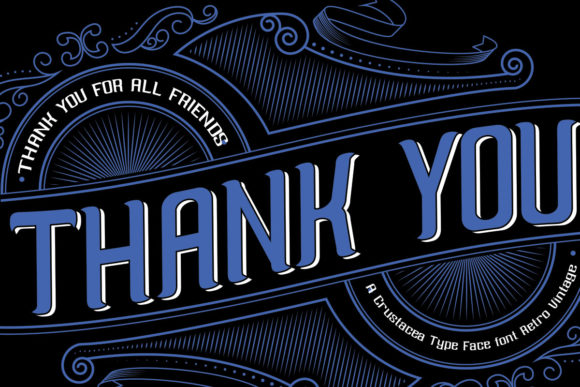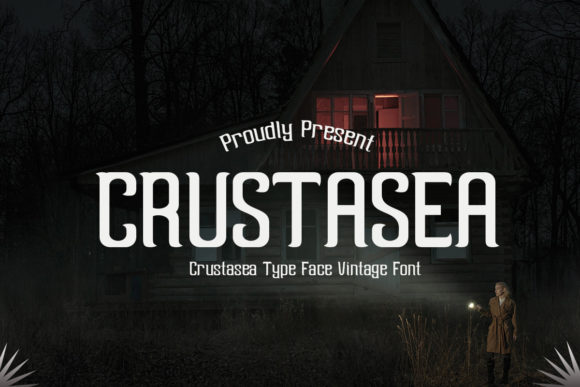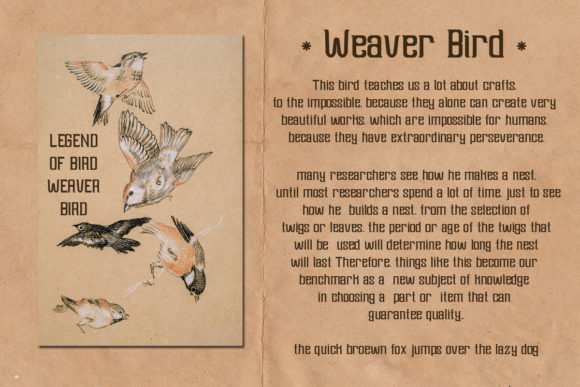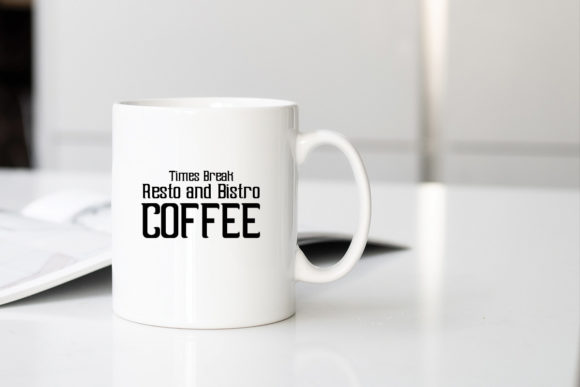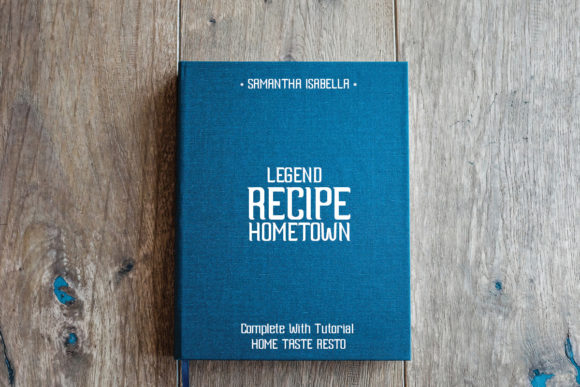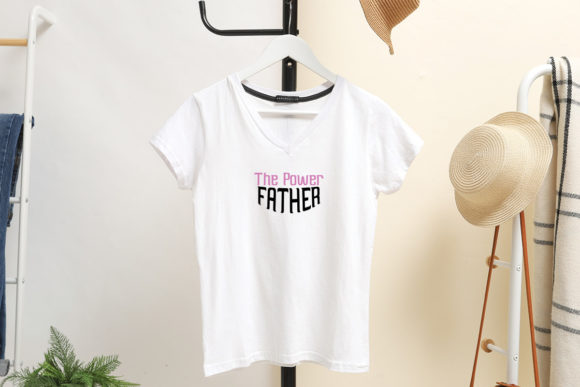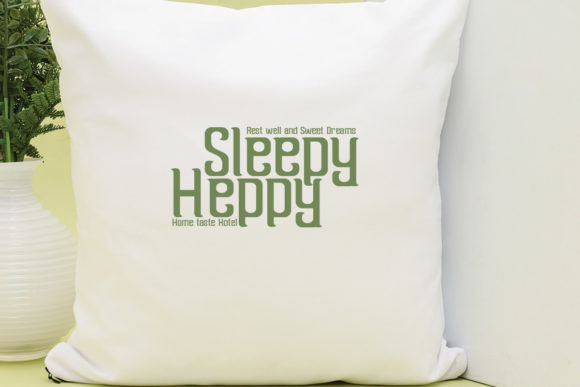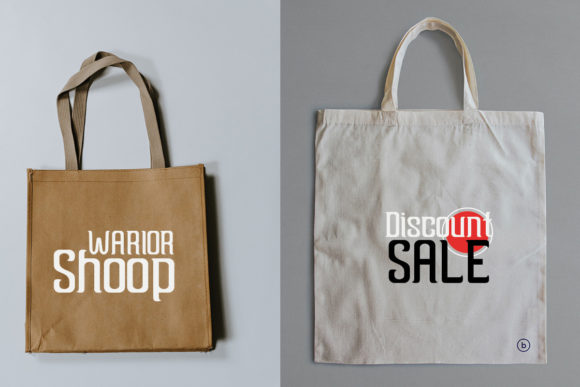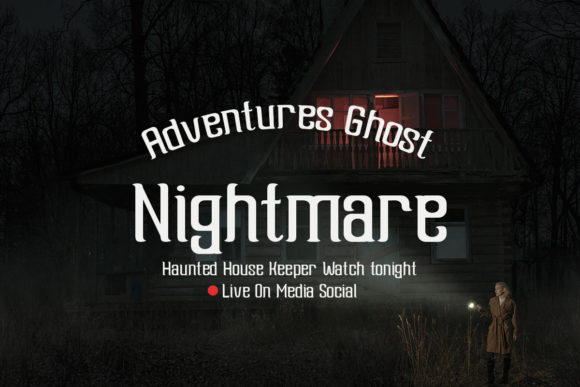
Crustasea Font
CRUSTASEA FONT SPECIMEN
Introducing Crustasea, an old slab serif font with a modern twist. Crustasea combines retro aesthetics with a contemporary edge, resulting in a font that is both nostalgic and cool. With its bold and clear letterforms, Crustasea is the perfect choice for those seeking a retro and authoritative look in their designs. Whether you’re aiming for a vintage-inspired feel or simply want to make a bold statement, Crustasea adds a touch of dashing and mightiness to your typography.
Crustasea’s old slab serif design sets it apart as a font that exudes a sense of history and character. Its vintage-inspired letterforms carry a timeless appeal, capturing the essence of classic typography. At the same time, Crustasea incorporates modern elements that give it a contemporary look, striking the perfect balance between the old and the new.
The clear and easy-to-read nature of Crustasea ensures that your message is conveyed with clarity and impact. The boldness of the letterforms adds an authoritative touch, making it ideal for designs that require a strong and commanding presence. Whether it’s for headlines, logos, or other design elements, Crustasea’s dashing and mighty typography elevates the visual impact of your designs.
Crustasea’s versatility allows it to be suitable for a wide range of design types. It adds a bold and authoritative aesthetic to various projects, including branding materials, posters, packaging, book covers, and more. Whether you’re working on a vintage-inspired design or need typography that demands attention, Crustasea’s character and clarity make it a valuable asset.
In summary, Crustasea is an old slab serif font with a modern look that brings together retro aesthetics and contemporary appeal. Its ability to symbolize designs boldly, its easy-to-read and clear nature, and its dashing and mighty typography make it a perfect choice for various design applications. Embrace Crustasea and let its nostalgic yet cool vibe add a touch of history and impact to your designs.